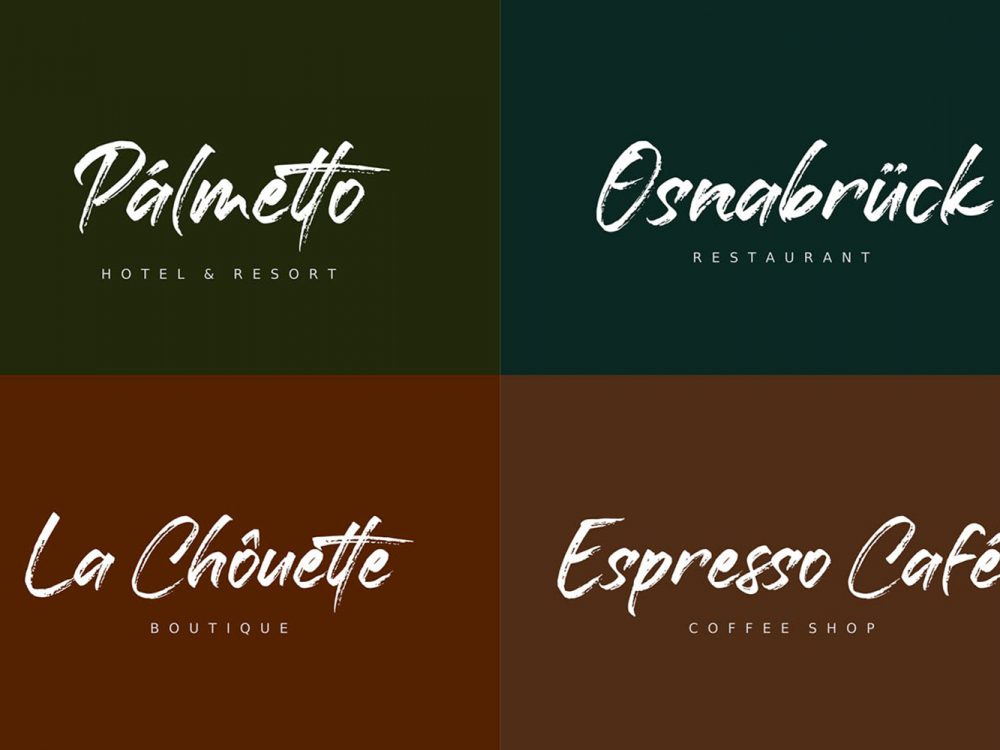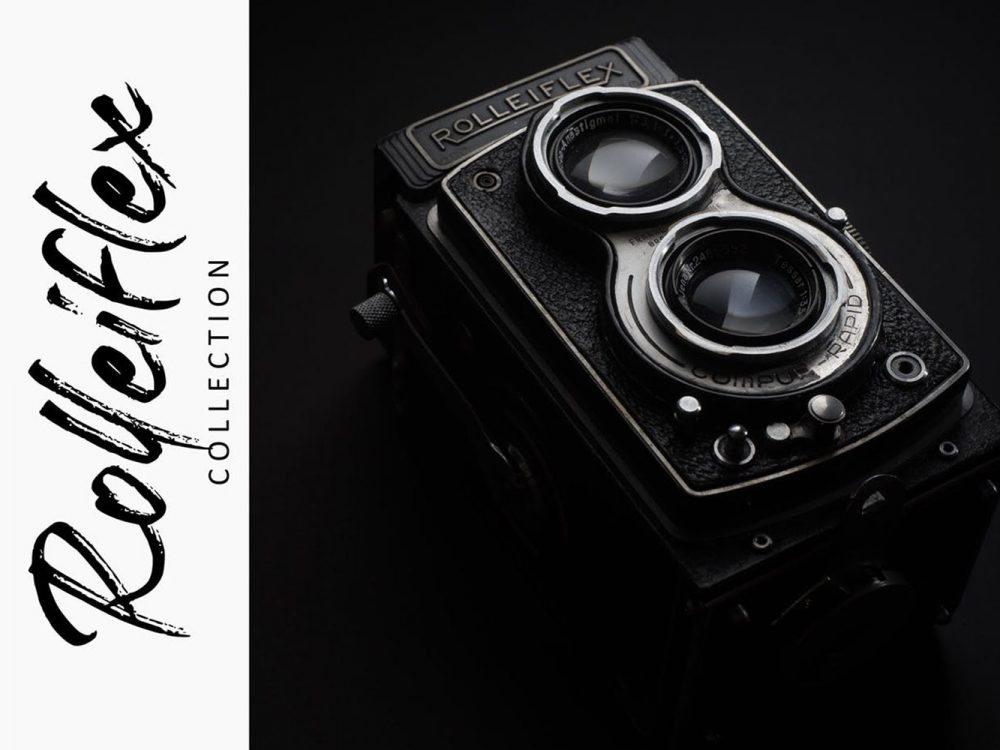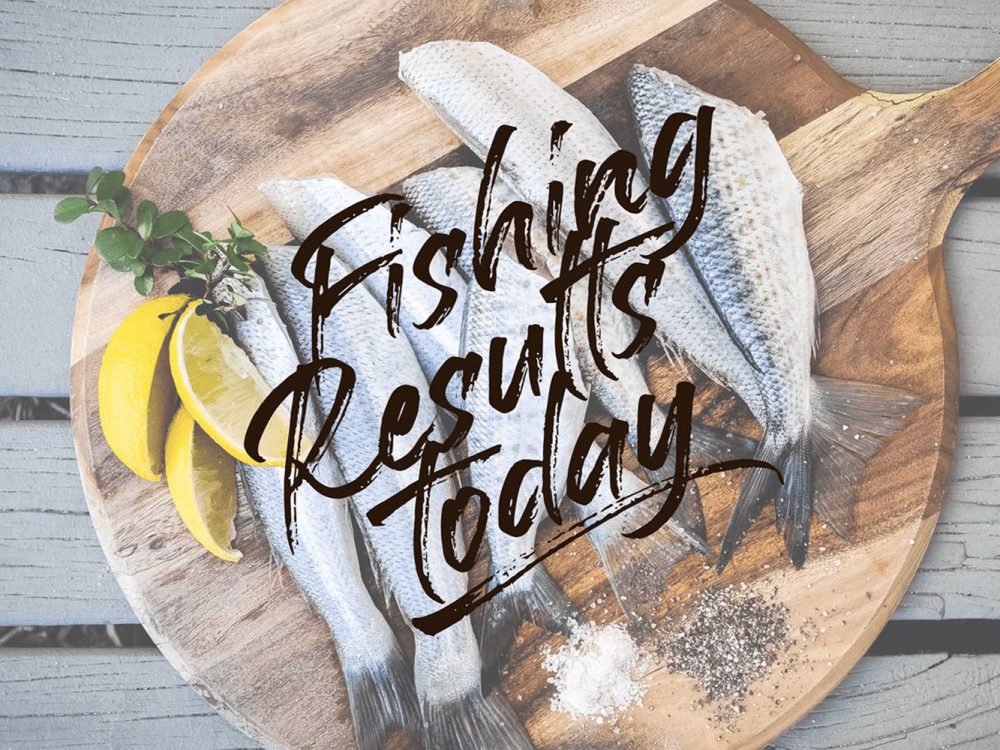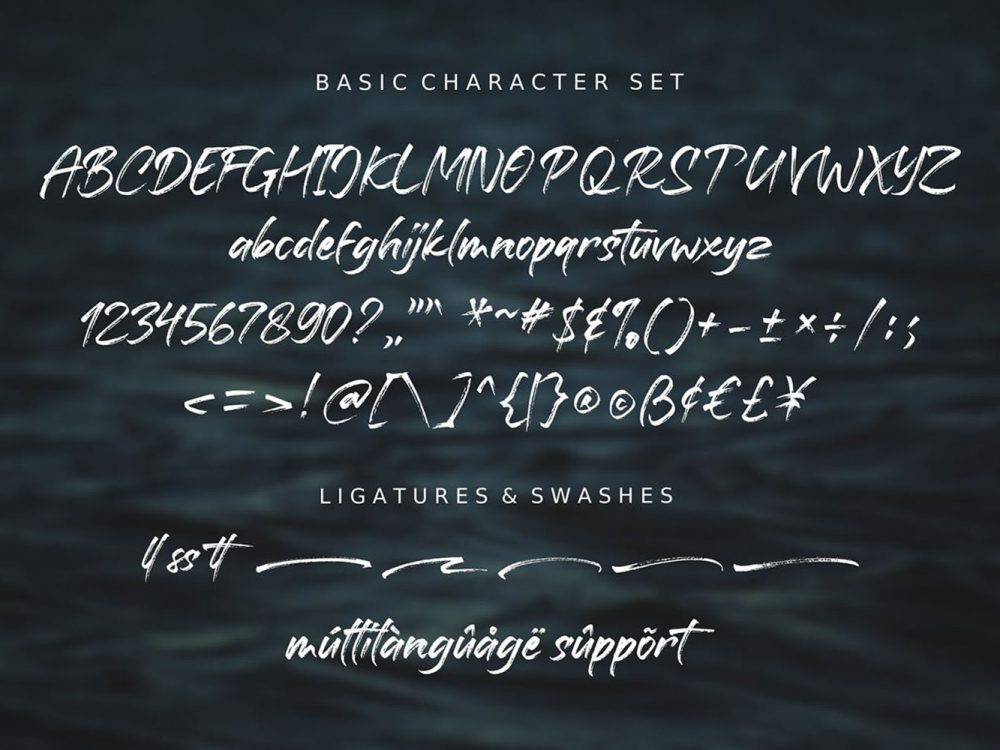
Free Battaghorse Handbrush Font
Free Battaghorse Handbrush Font is a beautiful and interesting handwritten font that imitates writing with a brush and compares favorably with other fonts with an elegant calligraphic style. This font will help you create unique design projects and improve your professional level. Use this font to create memorable posters, wedding invitations, cards, branding, flyers, and more. This demo font absolutely comes with a personal use license, you can get a commercial license unless you purchase it.